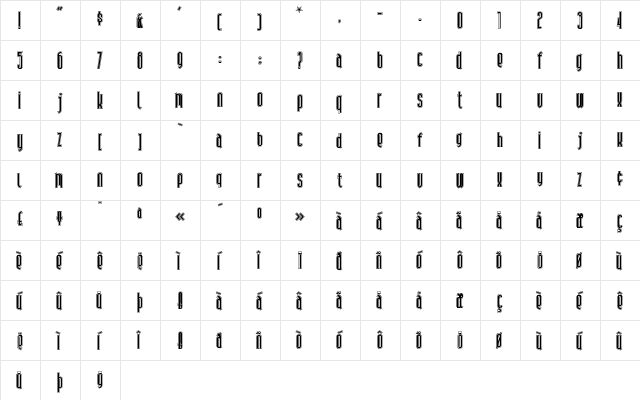
AndironOutline Regular
Design Context for AndironOutline Typeface
AndironOutline brings ornamental detail and strong personality to headlines and identities, where visual impact matters more than quiet functionality.
Font Pairing: Pair with a clean neutral sans-serif for body copy to let AndironOutline's character lead without overwhelming the composition.
Pro Tip: Treat AndironOutline as the centrepiece of your typographic hierarchy. One strong heading set in a decorative face can carry an entire layout.